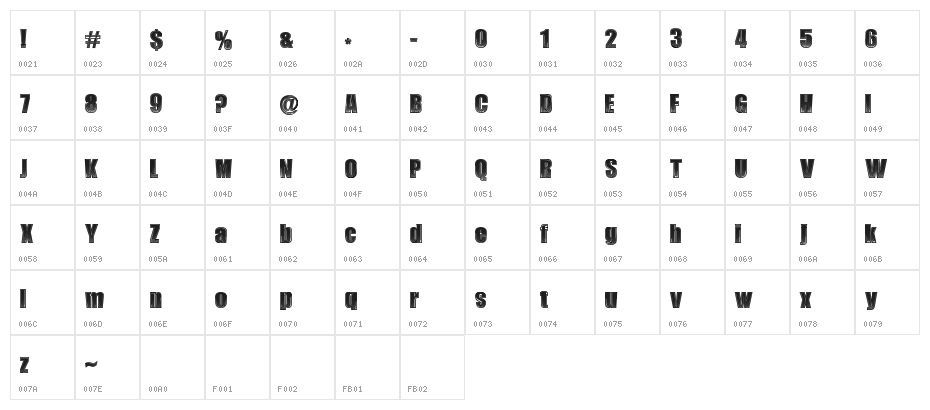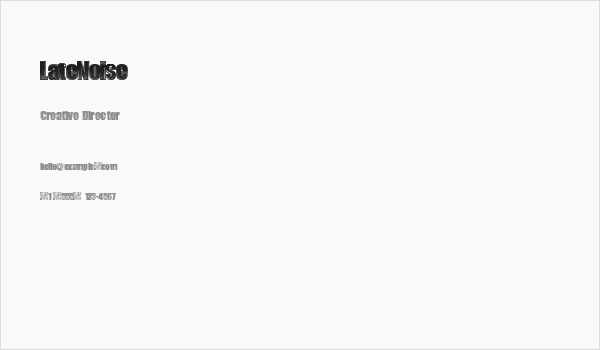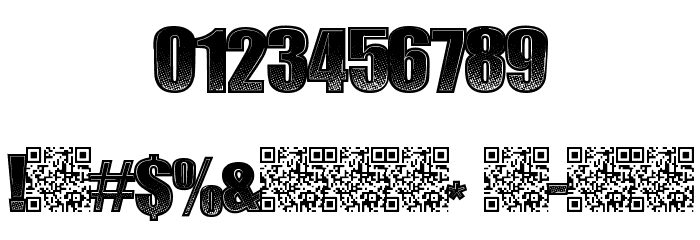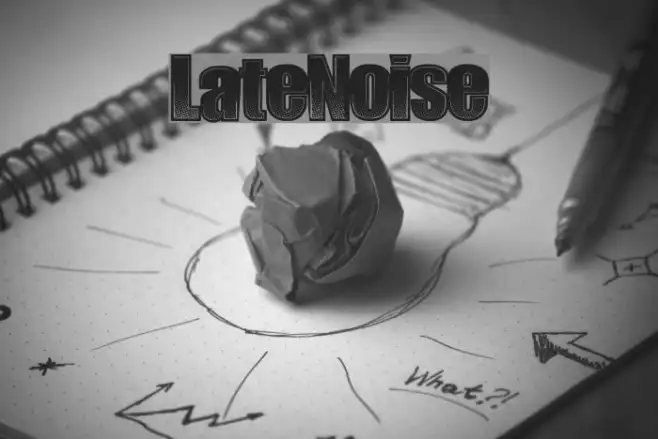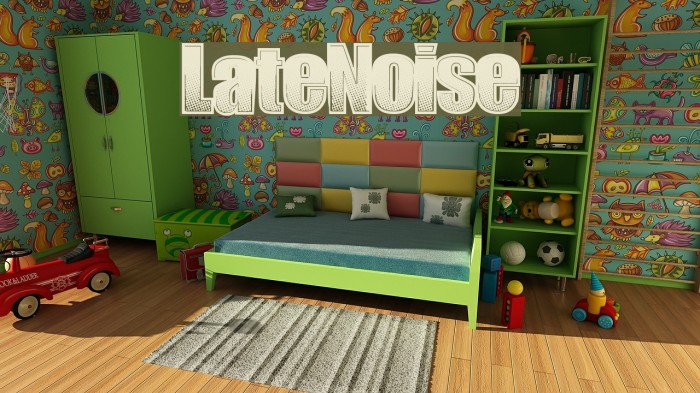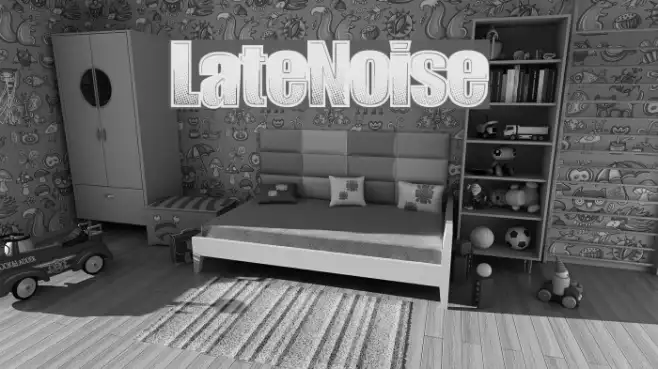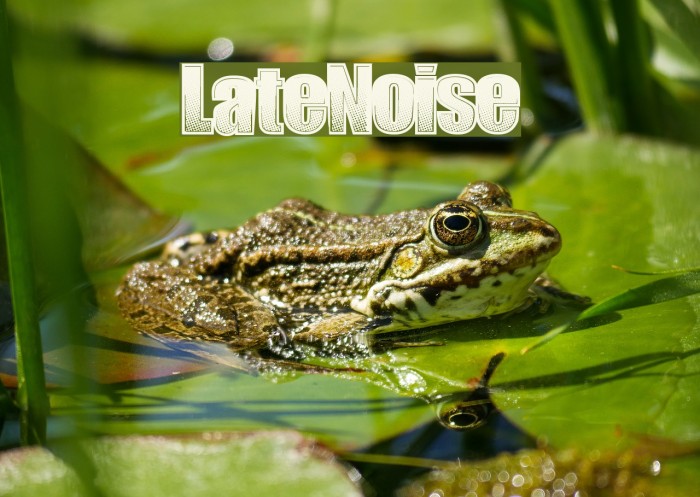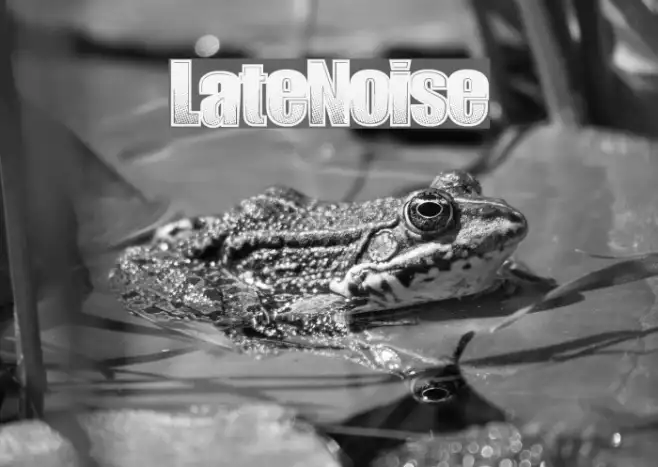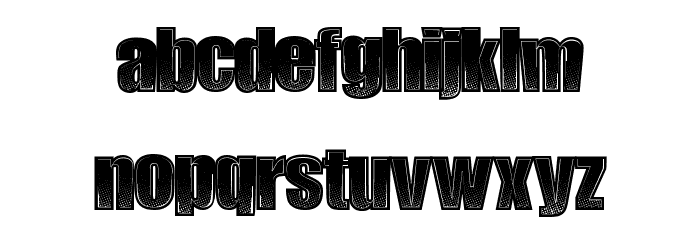
LateNoise Font
LateNoise Description
This font features a bold, impactful design with a distinct textured pattern that adds depth and character to each letter. The uppercase and lowercase letters are consistent in style, maintaining a strong presence with thick strokes and a shadow effect that enhances its three-dimensional appearance. The numerals and special characters follow the same design principles, ensuring uniformity across all glyphs. This font's unique texture and boldness make it ideal for projects that require a standout visual element.
| Proposed Projects | Ideal for posters, headlines, branding, and any design needing a bold, eye-catching typeface. |